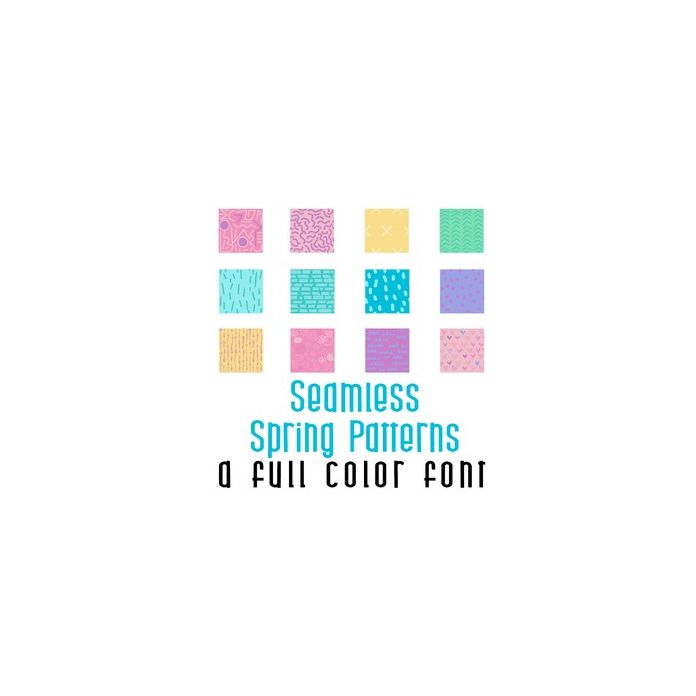
This adorable full-color doodlebat font features 26 seamless Spring patterns. Perfect for cards, crafts, gifts, decor, scrapbook pages, planner stickers, and more!